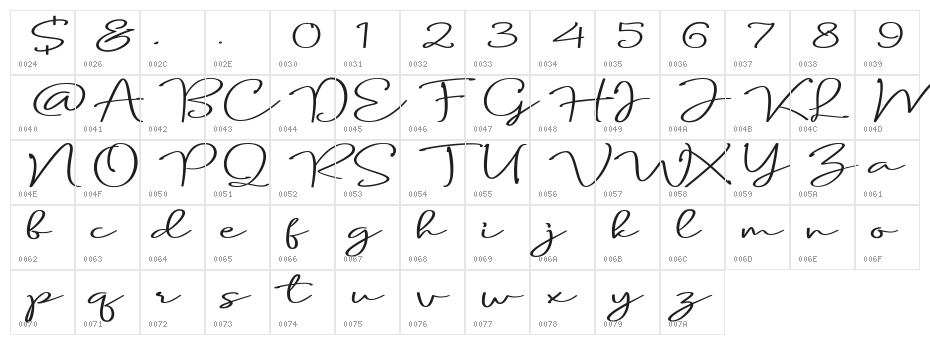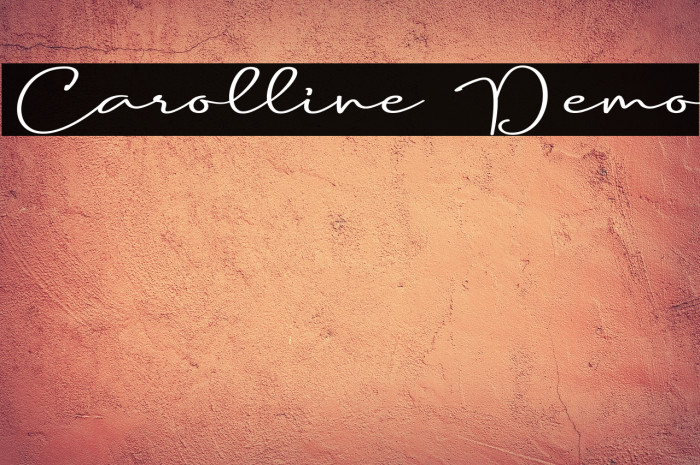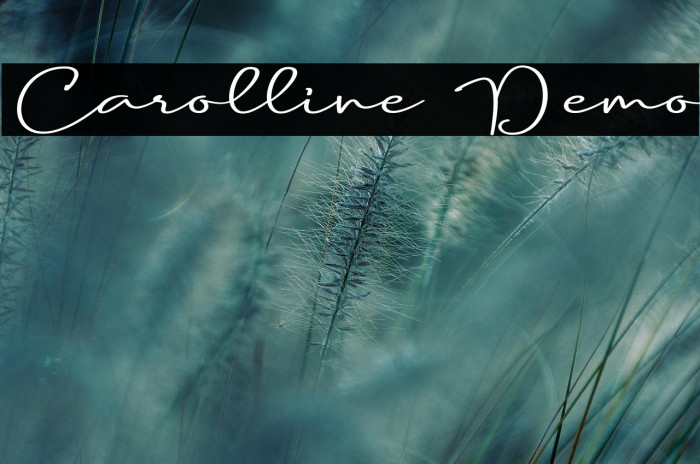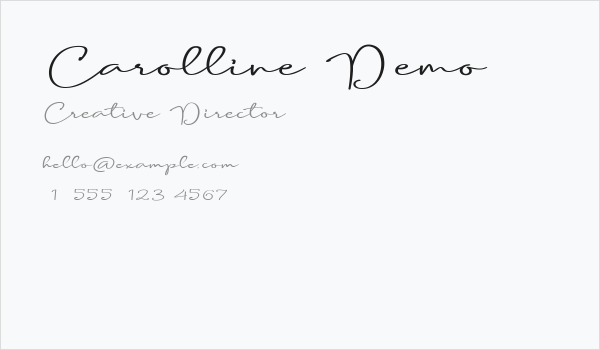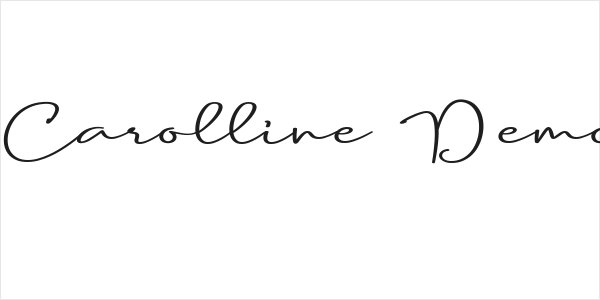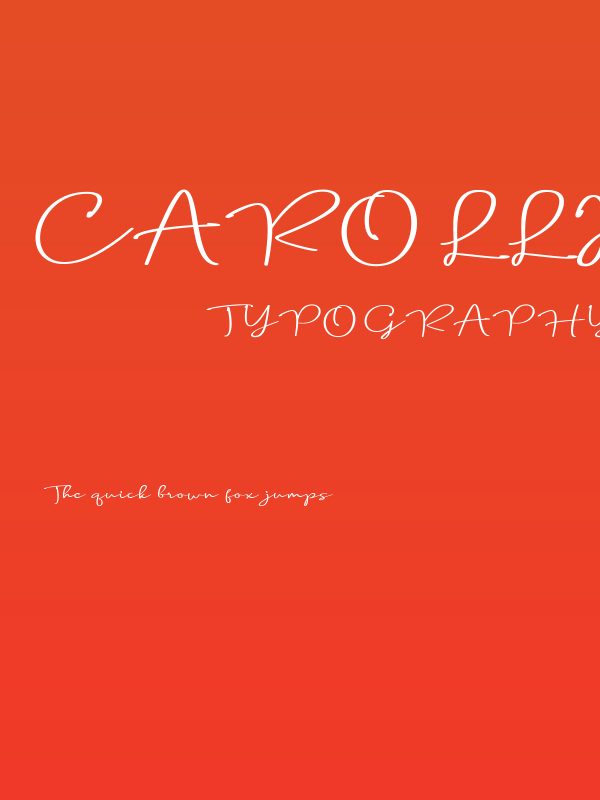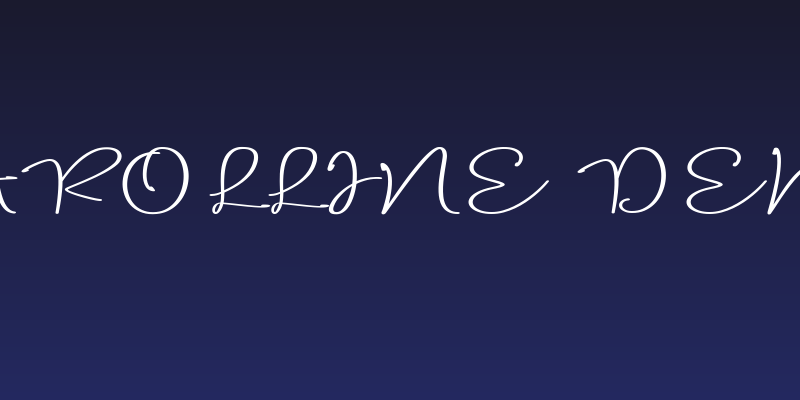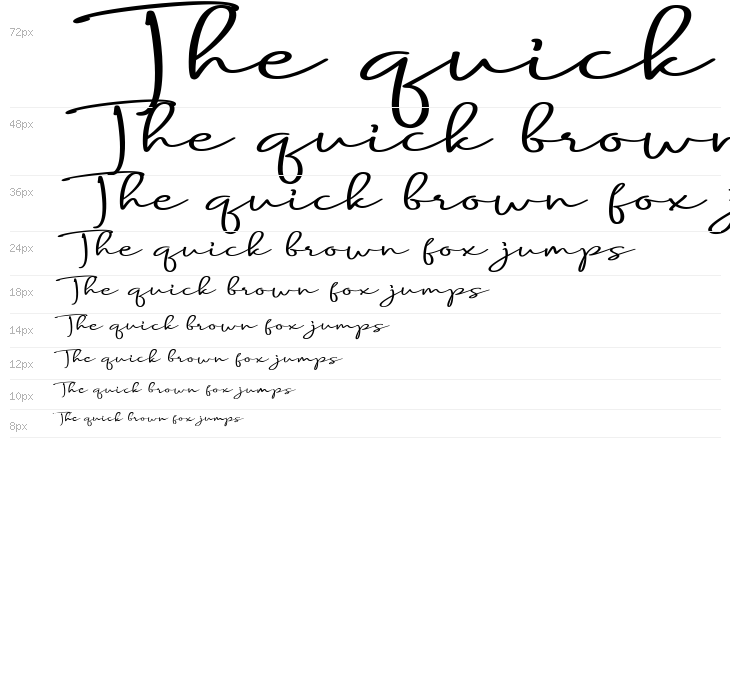
Carolline Demo Font
Carolline Demo Description
This font exhibits a flowing, cursive style that combines elegance with readability. The uppercase letters are gracefully connected, while the lowercase letters maintain a consistent, smooth flow. The numerals are distinct and align well with the overall script aesthetic. Special characters are designed to complement the letters, adding a cohesive look. The strokes are moderately thick, providing a balanced contrast that enhances legibility without sacrificing the decorative appeal. This font is ideal for projects that require a touch of sophistication and personal flair.
Overall StyleElegant
Use CaseLogos, Invitations, Greeting Cards
Proposed ProjectsIdeal for wedding invitations, greeting cards, branding, and elegant logos.